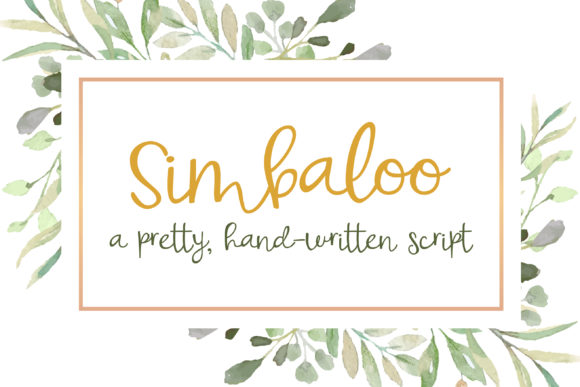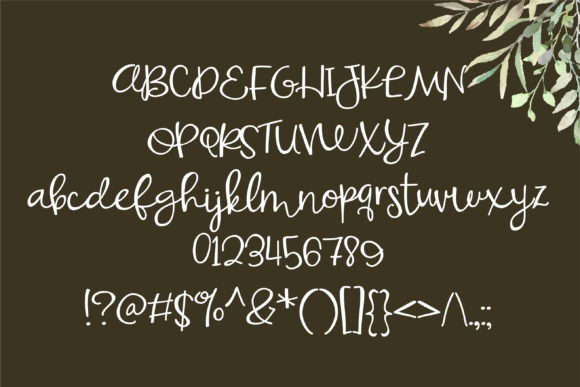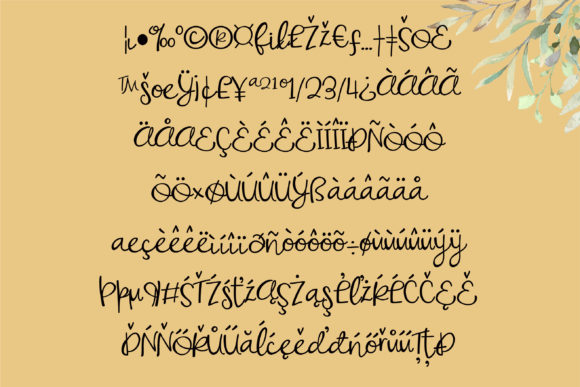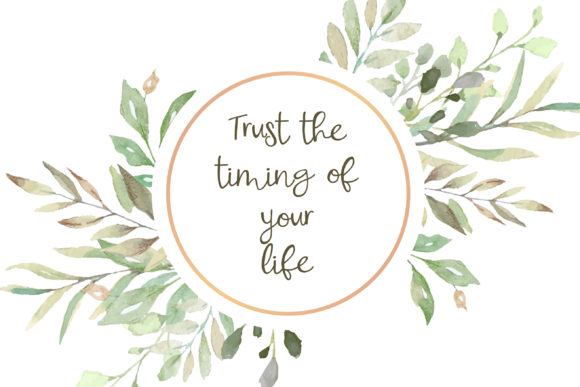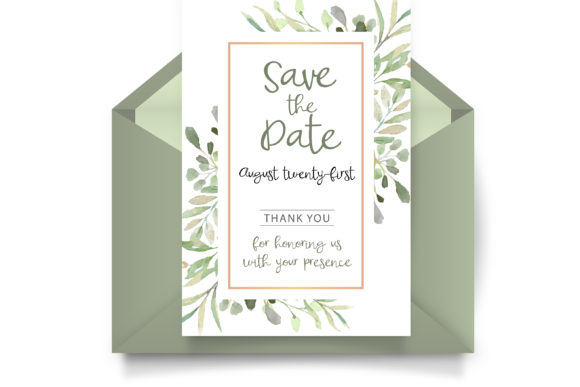
HomeScript FontsSimbaloo Font Script Fonts Simbaloo Font FacebookXPinterestWhatsApp Simbaloo Font Poster 2 Simbaloo Font Poster 3 Simbaloo Font Poster 4 Simbaloo Font Poster 5 About Simbaloo Font Simbaloo is a hand-crafted script that has delicate appearance. Fall in love with its friendly look & feel! DOWNLOAD ON CREATIVE FABRICAThis font is sold and delivered by Creative Fabrica. Font Canyon may earn a commission if you buy through this link. People also explored Order Font Struggle More Duo Font Candid Kisses Font Bedtime Story Font Santa Font Willingar Diary Hebydia Font Liforiesta Font Collathives Font 375 0 TagsSimbaloo Font Previous articleFrolicking FontNext articleWhite Glue Duo Font LEAVE A REPLY Cancel reply Comment: Please enter your comment! Name:* Please enter your name here Email:* You have entered an incorrect email address! Please enter your email address here Website: Save my name, email, and website in this browser for the next time I comment. Personal Use Free Hello Sarrah Personal Use Free Read more about this font Amelline Personal Use Free Read more about this font Sheiloria Personal Use Free Read more about this font Unispace Personal Use Free Read more about this font BLOG Elegant Wedding Invitation Fonts – Handwritten & Script Fonts Elegant Wedding Invitation Fonts Your wedding day is one of the most important moments of your life, and every detail matters—including your invitation design. Our... Using Fonts in Digital Marketing: Tips to Strengthen Your Brand Identity Top 7 Google Fonts Alternatives for Faster and Privacy-Friendly Web Design (2025) Transform Your Website: Elevate Your Typography with 7 Best Web Font Generators